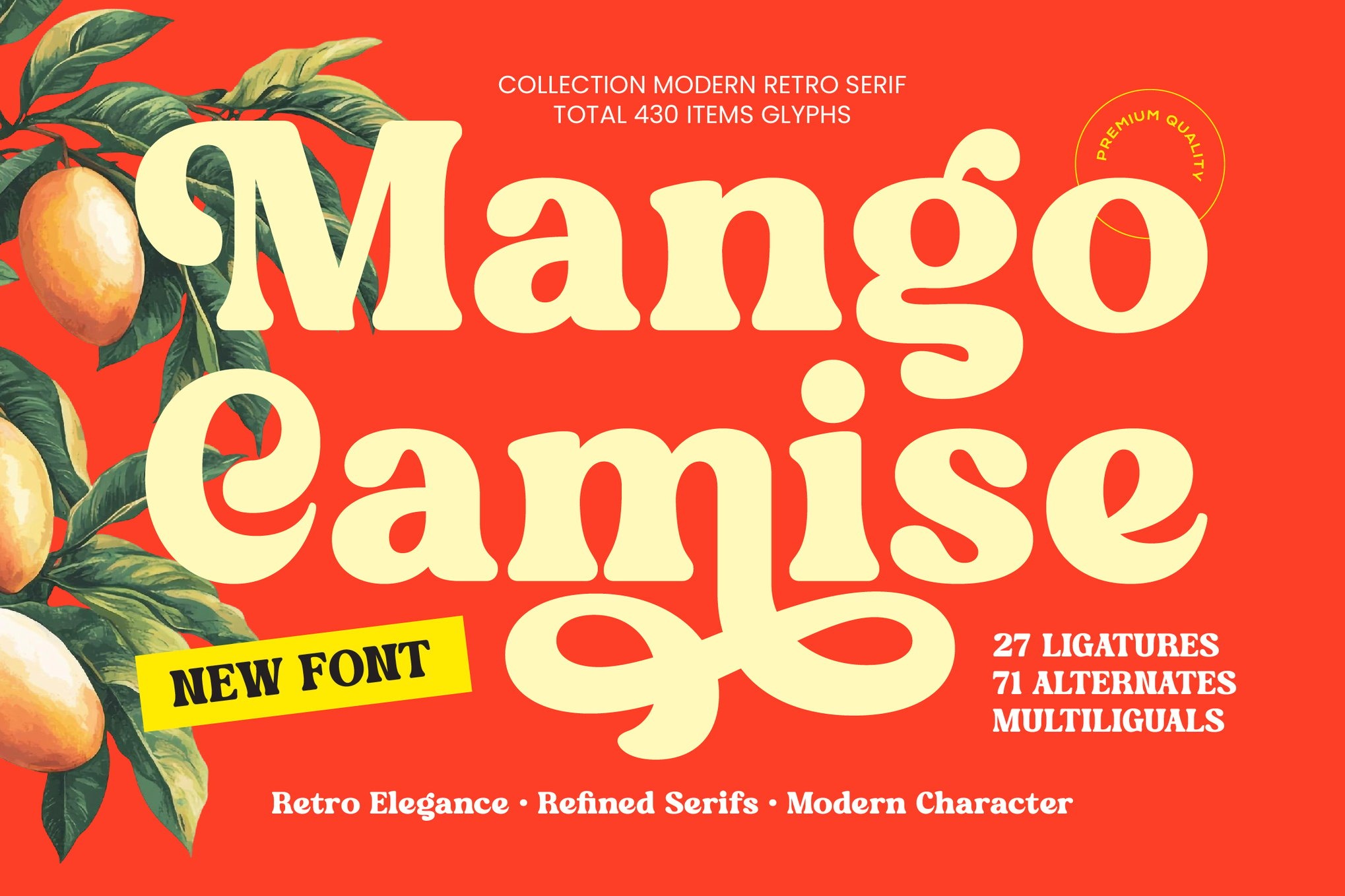
Mango Camise – Retro Serif Font
Mango Camise – Retro Serif Font is a stylish typeface that enhances visual appeal and works effortlessly in many design contexts. Mango Camise – Modern Retro Serif Elevate your visual identity with a font that perfectly balances vintage charm and contemporary flair. Mango Camise – Modern Retro Serif is a masterpiece of modern retro design, featuring bold curves and refined serifs that capture the essence of high-end aesthetics. Its high-contrast strokes and organic shapes provide a sense of warmth and sophistication, making it an essential tool for designers seeking a unique typographic personality.
Experience unparalleled versatility with a robust set of features designed for global impact. Boasting a comprehensive library of 430 glyphs, including 27 custom ligatures and 71 creative alternates, this typeface offers endless possibilities for customization. With its extensive multilingual support, Mango Camise – Modern Retro Serif adapts seamlessly across global markets, making it incredibly versatile for international projects. This ensures your message remains consistent and visually striking in any language.
Ligature
Uppercase and lowercase
Numbering and Punctuation